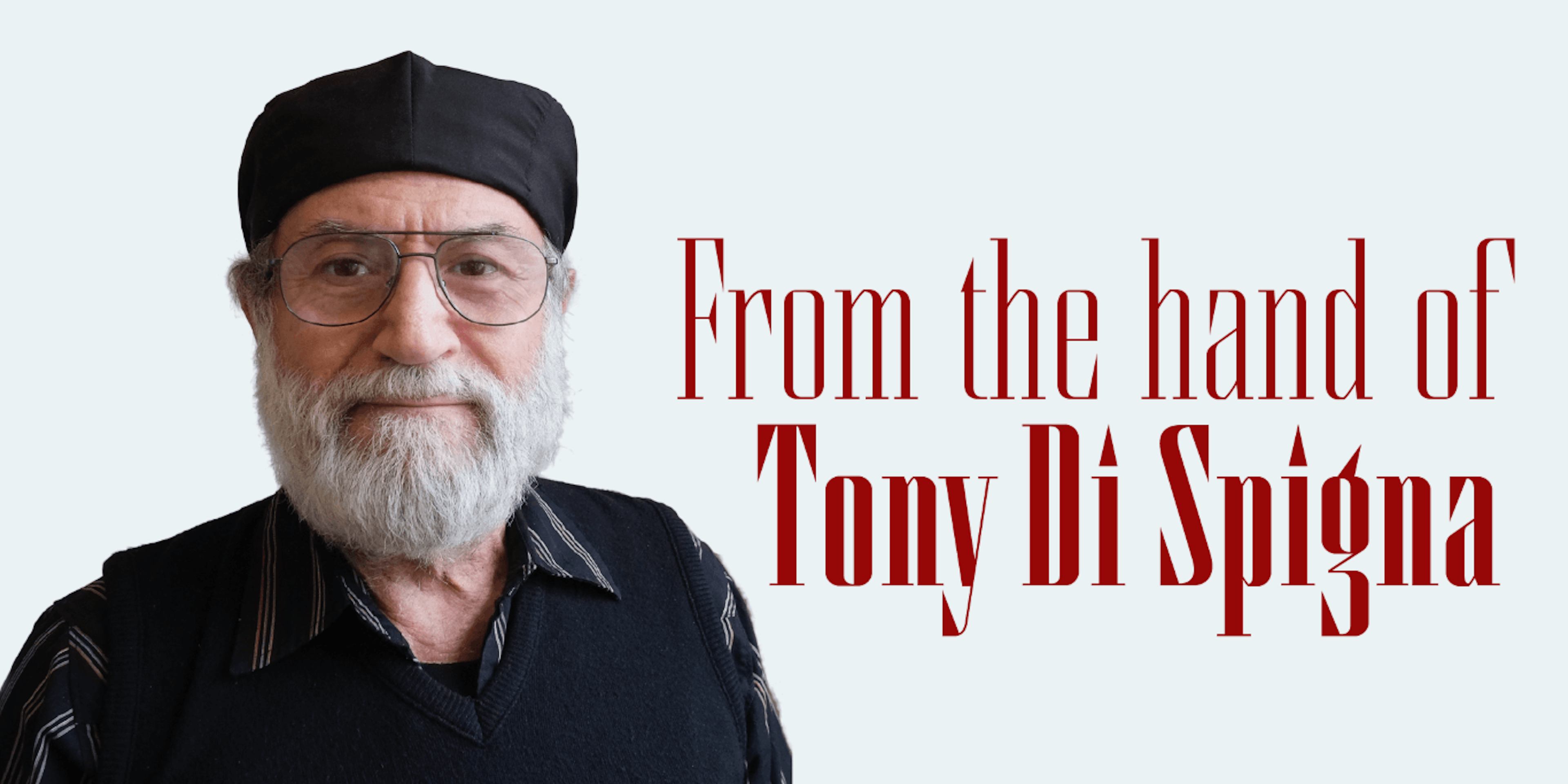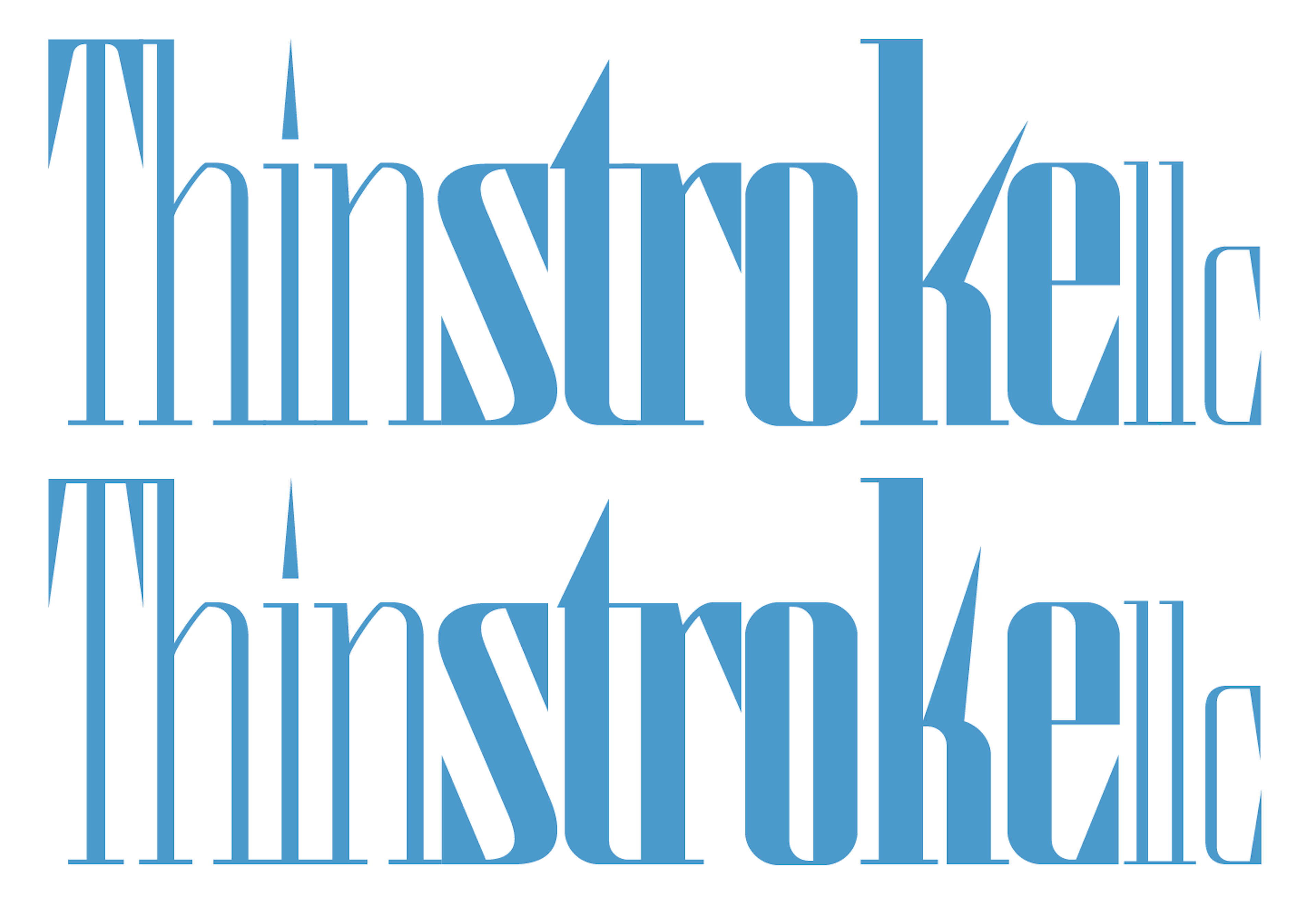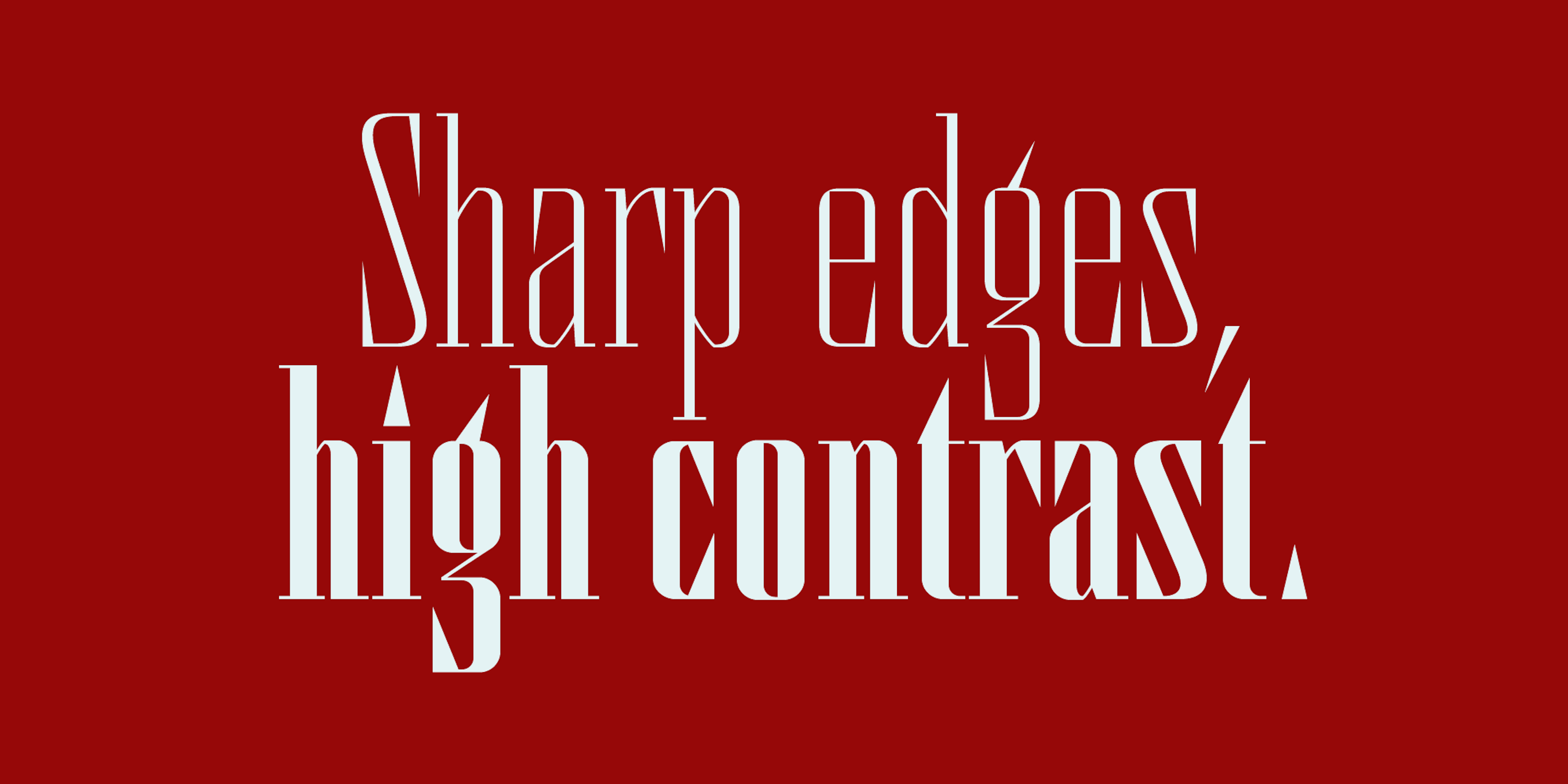
When naming their type foundry, Tony Di Spigna and Bill Hilson kept returning to one unique aspect of Di Spigna’s designs: Truly hairline thin strokes. Achievable only though years of perfecting the craft, a hair line is a challenge for any calligrapher.
Once they had decided on the name, Thinstroke, Di Spigna began inking their logo. He drew sharp, condensed letters. With high-contrast, condensed width, and a tall x-height, the Thinstroke logo appears sturdy—almost immovable—without abandoning elegance.
The Thinstroke logo (top) compared to the letters set in Antina Extra Light and Ultra.
Elegance and precision in every stroke. When you work with an Antonio Di Spigna typeface, you connect directly to Tony Di Spigna’s vision, sensibility, and history and Bill Hilson’s technological prowess.
Like the name Thinstroke, Di Spigna kept revisiting these sharp, clean letterforms, adding more letters and weights. From this exploration, Antina was born. With seven masterfully hand-drawn weights, Antina adds to Thinkstroke’s library of stylish display faces.
Unlike some of his other scripts, Di Spigna’s Antina is a roman face, with contemporary features like triangle tittles, terminals, and full stops.
Not to be used at text sizes, Antina pairs well with high-contrast serif faces like Didones. From our library: Amster, IvyPresto Text, Louvette Text, Lavigne Text, Escrow Text, Stilson, and Benton Modern Text all pair well with Antina.